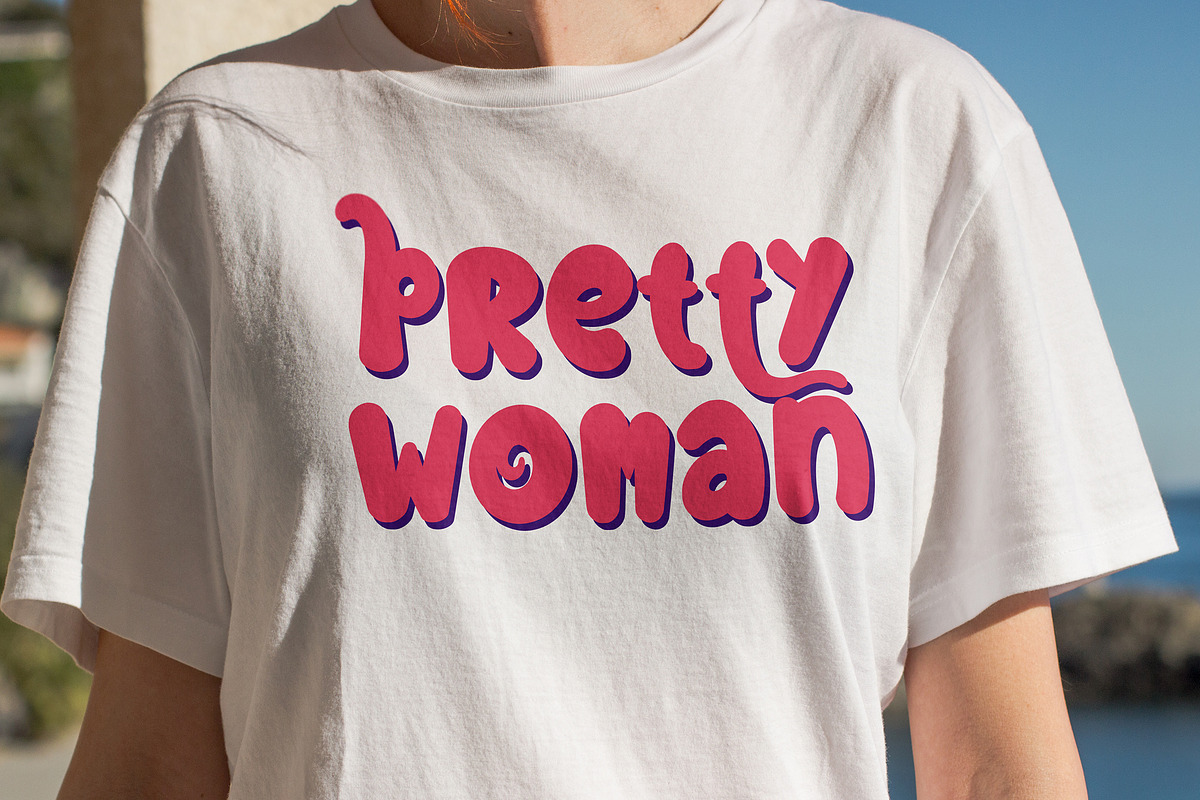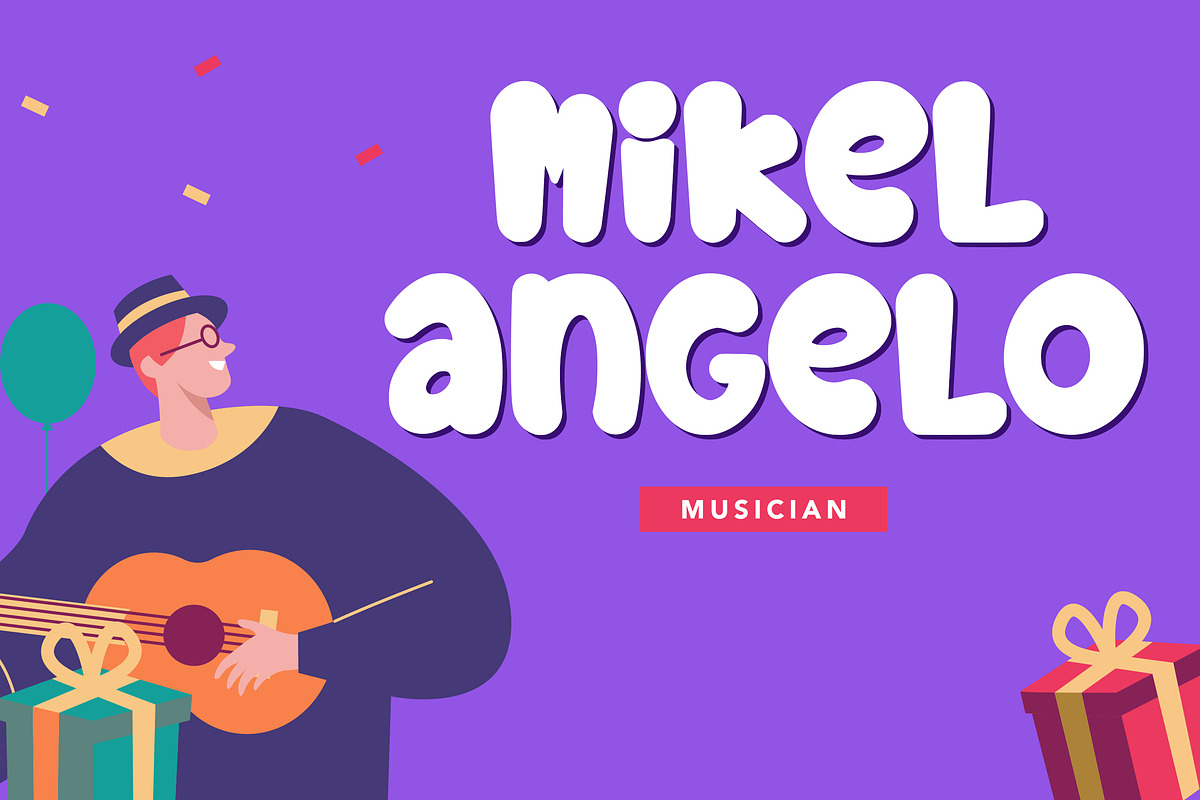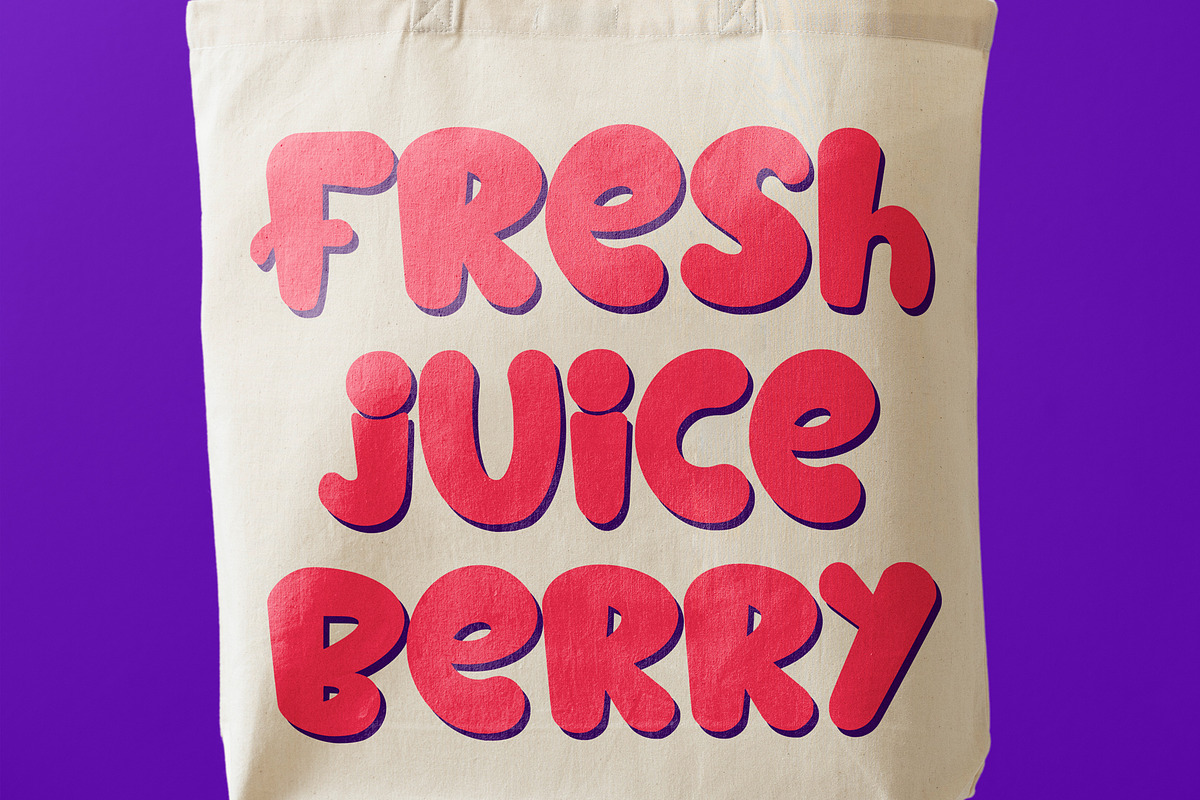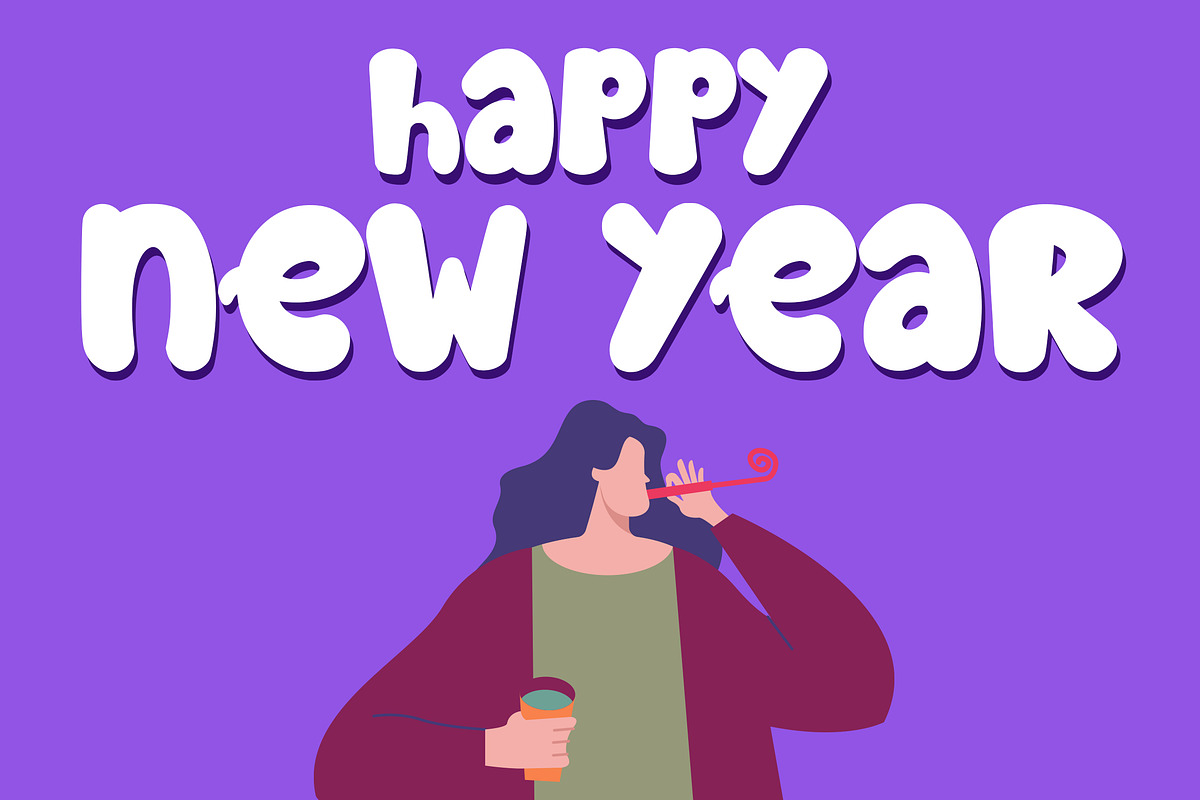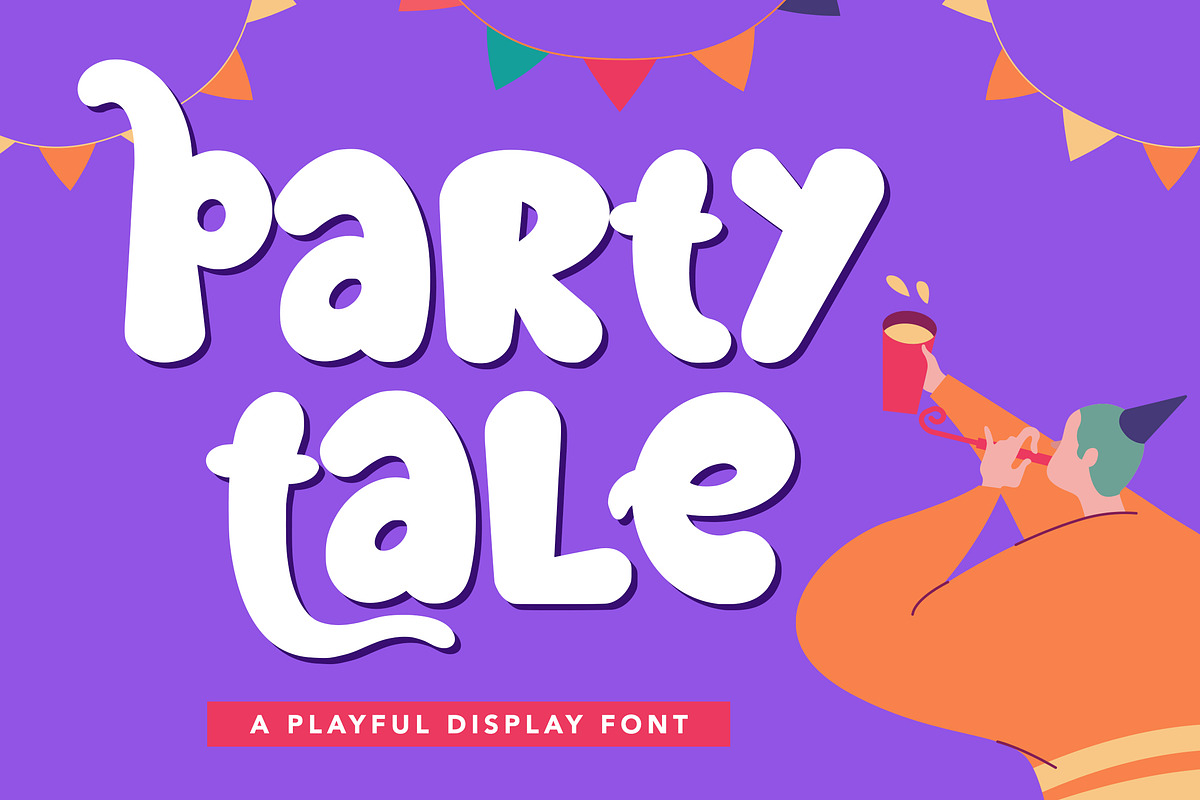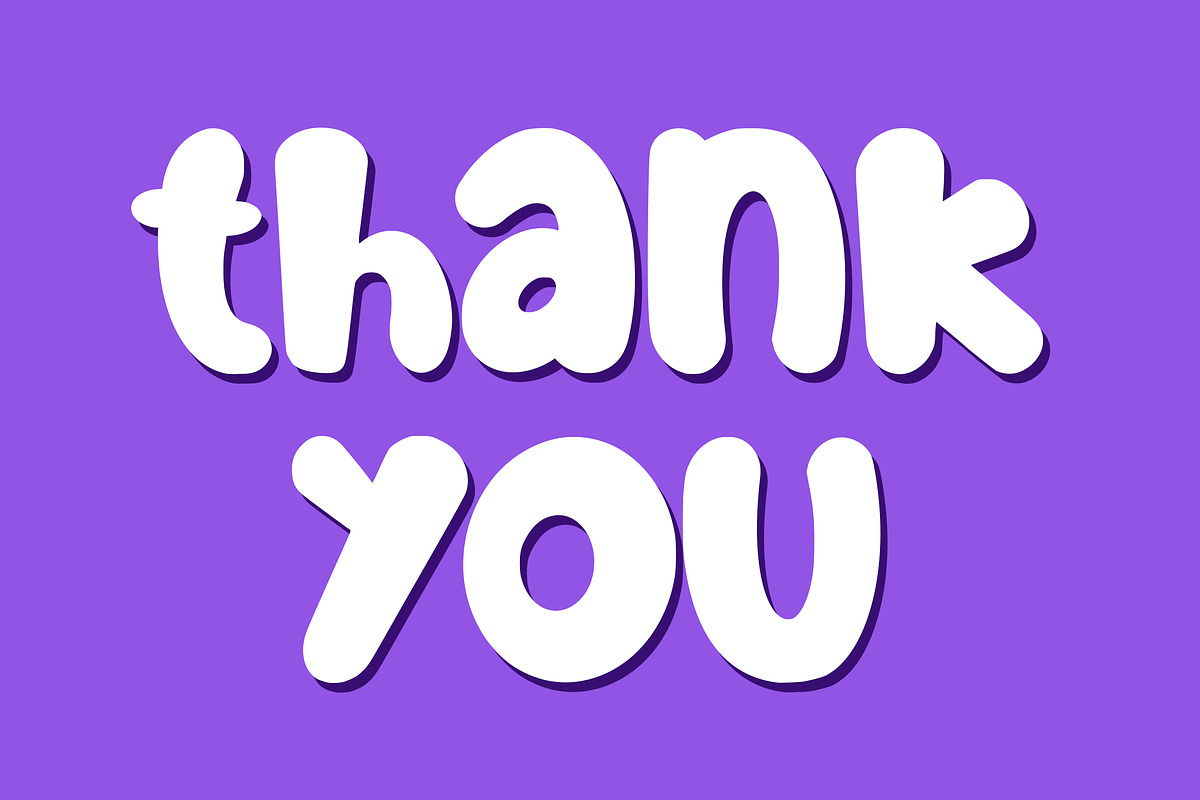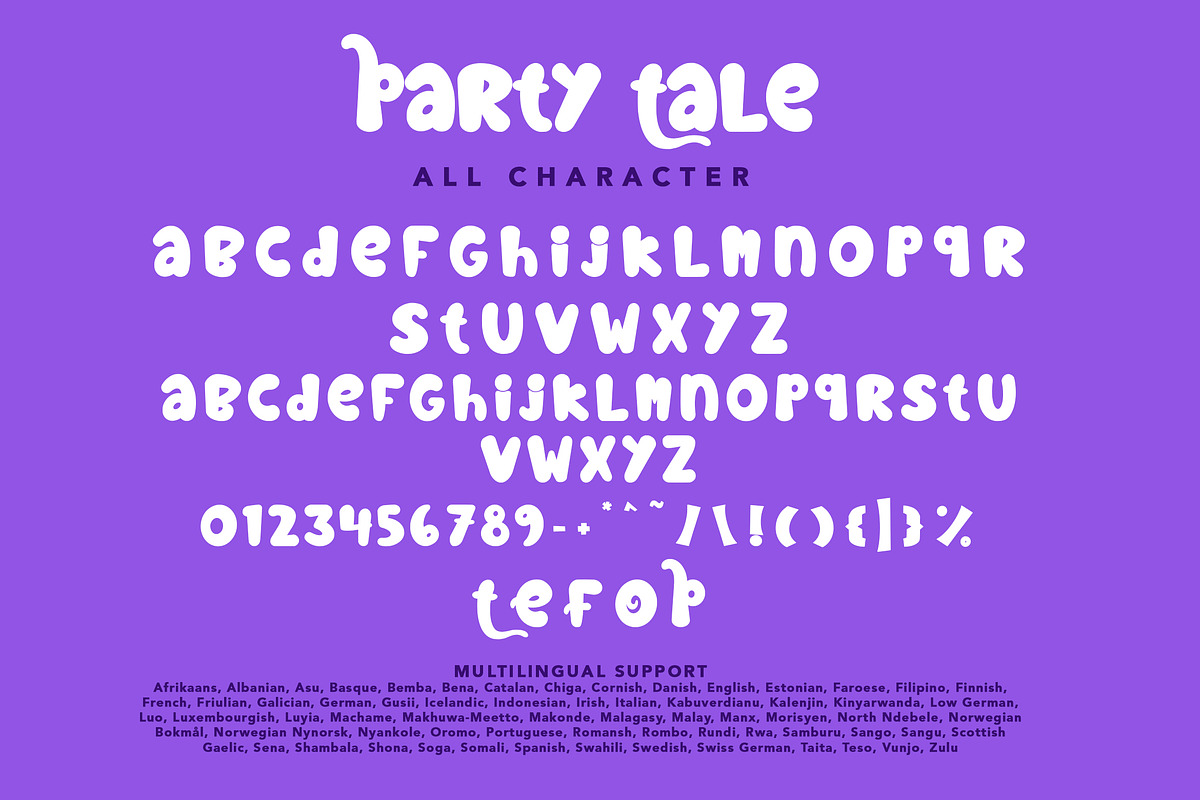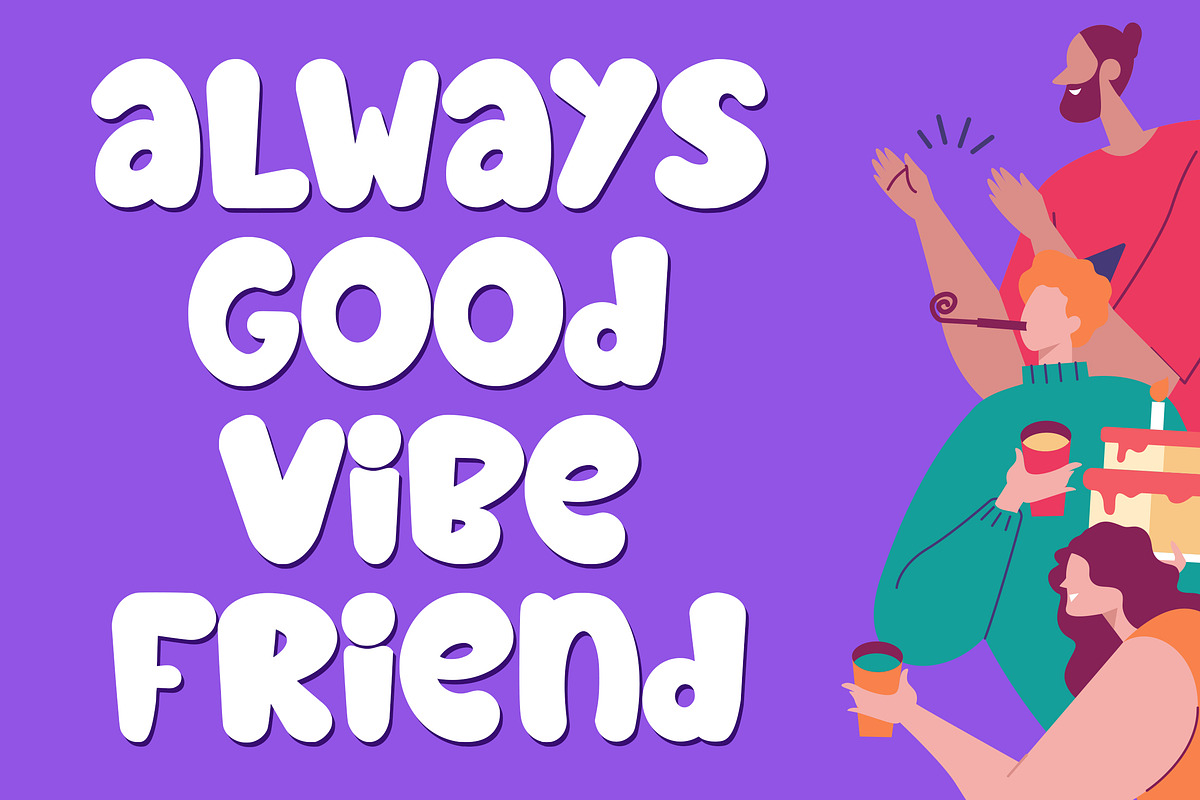
Party Tale
Is a display font with distinctive handwritten characters perfect for branding projects, logos, wedding designs, media posts, advertisements, product packaging, product designs, labels, photography, watermarks, invitations, stationery, and any project who need handwritten dishes.
Features : • Character Set A-Z • Numerals & Punctuations (OpenType Standard) • Accents (Multilingual characters) • Ligature